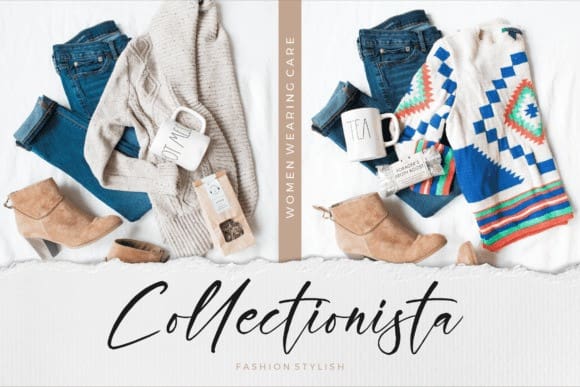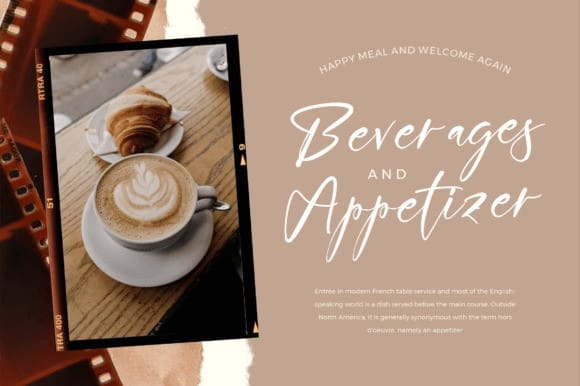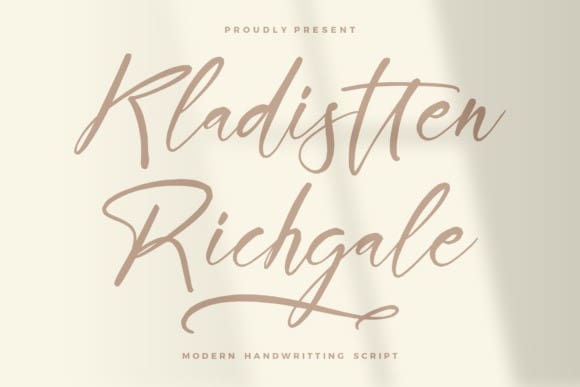
Kladistten Richgale Font
Kladistten Richgale Font is a flowing handwritten font, described by an elegant touch, perfect for your favorite projects. Fall in love with its incredibly distinct and timeless style and use it to create spectacular designs!